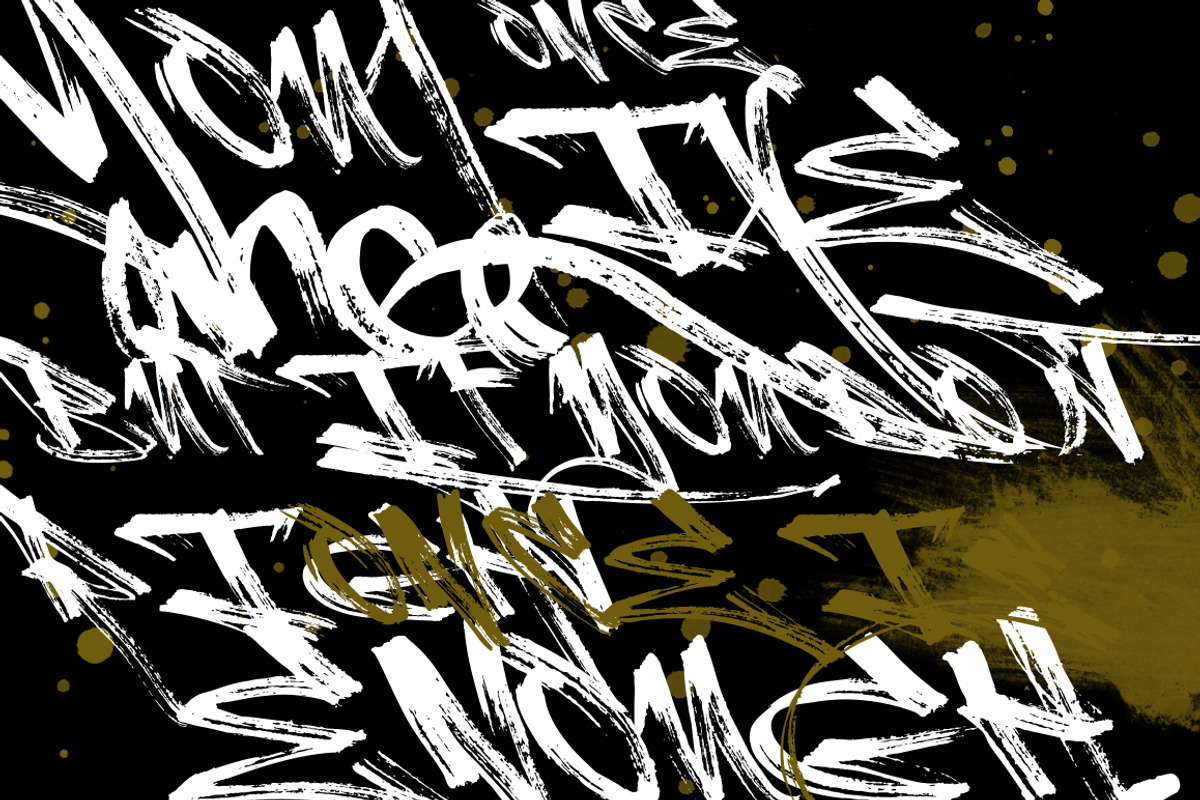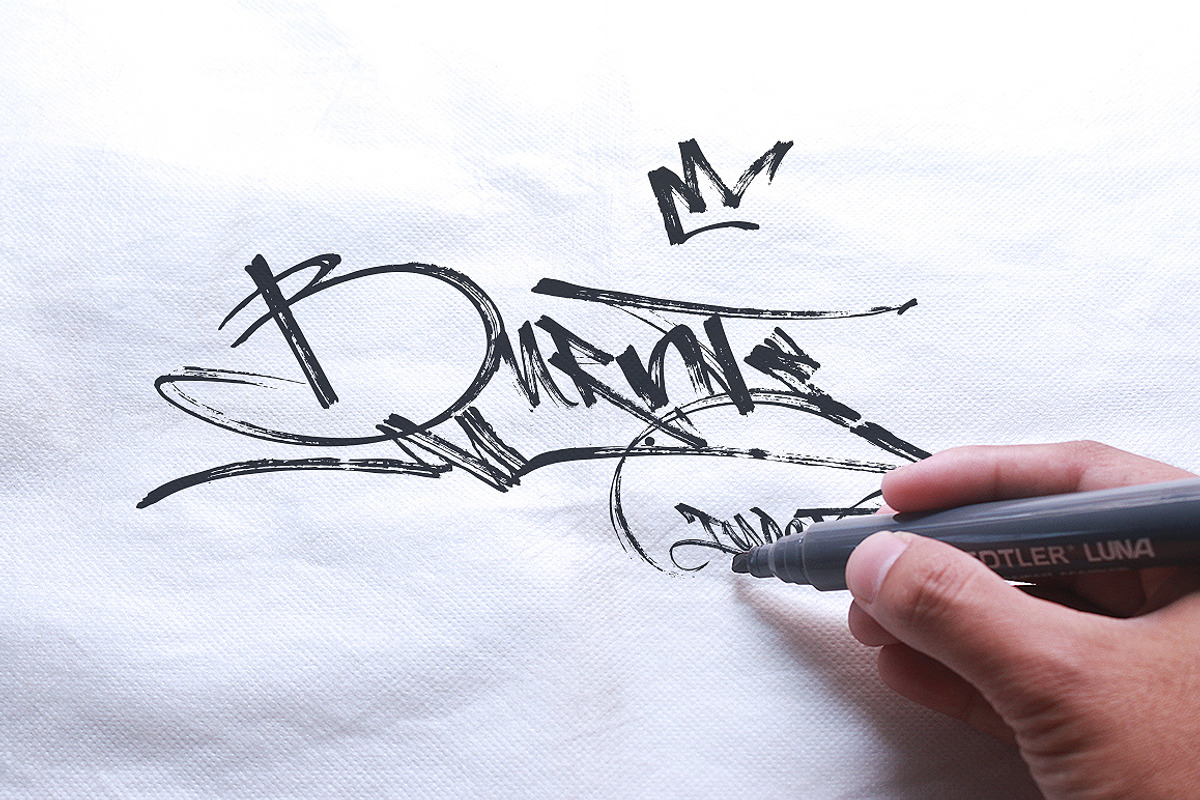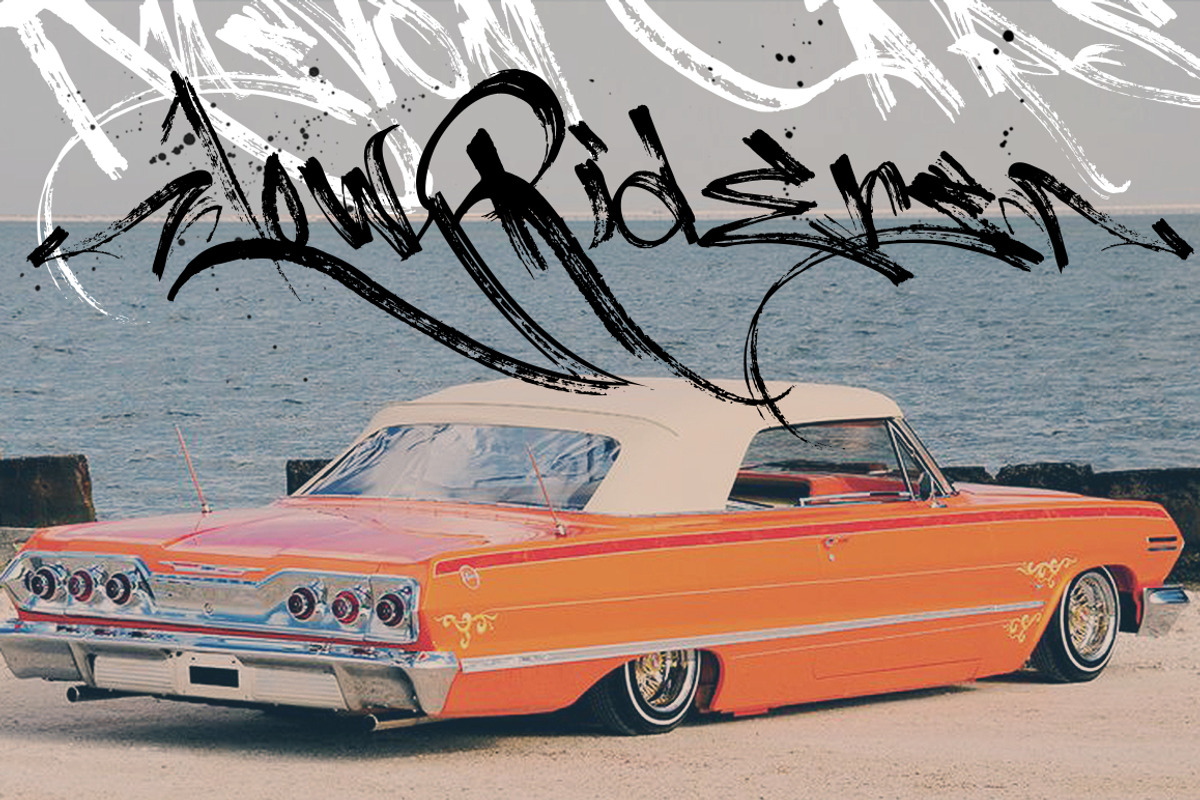
Burnts Marker (Tagging Style)-50%off
Burnts Marker born from vandals, boomber, street art, fast technique about writing, hip-hop, gravity, very suitable for Music promotion, cover Album, promotion, Gigs or anything else. Burnts marker come with Tagging style, you could make like D.I.Y maker personally
Available Stylistic alternates for lower case characters, accessible in the Adobe Illustrator Glyphs panel, or under Stylistic Alternates in the Adobe Photoshop OpenType menu.
- Burnts Regular
- Burnts Big Allcaps
- Burnts Alternates
- Burnts thunder swash